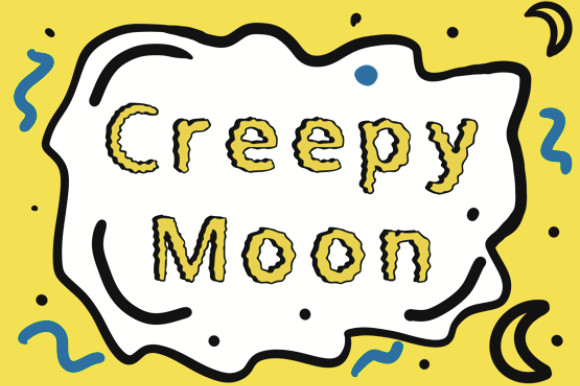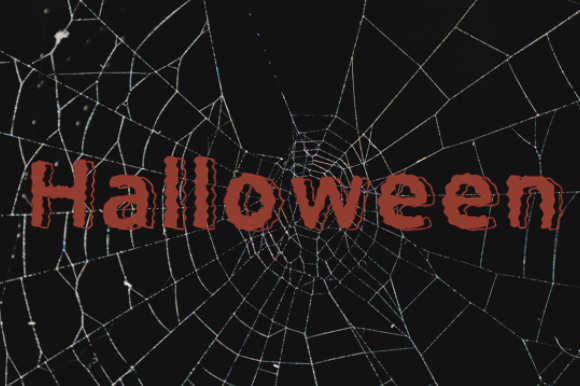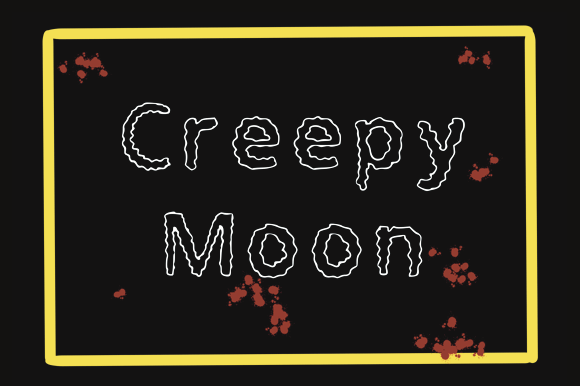
Creepy Moon Font
About Creepy Moon Font
**Creepy Moon: Embrace the Spooky Vibes with This Fun Handwritten Font**
*Creepy Moon* is a font that brings an element of spooky fun to your design projects. With its eerie and playful style, it’s perfect for capturing the essence of Halloween and adding a touch of the macabre to a wide range of creative endeavors. Whether you’re designing t-shirts, posters, social media graphics, logos, or other products, *Creepy Moon* is the font that will infuse your work with hauntingly delightful vibes.
One of the standout features of *Creepy Moon* is its ability to evoke the spirit of Halloween. The font’s playful yet eerie design captures the essence of this beloved holiday. It’s an ideal choice when you want to create designs that embrace the spooky and supernatural themes associated with Halloween.
T-shirts become an exciting canvas for creativity with *Creepy Moon*. Use this font to craft unique and eye-catching designs for Halloween-themed apparel. Whether you’re designing shirts for a spooky event or simply want to express your love for the holiday, *Creepy Moon* will set the perfect tone.
Posters that feature *Creepy Moon* will grab attention and set a spooky atmosphere. Whether you’re promoting a Halloween party, haunted house, or a horror film screening, this font will help you create visually compelling and haunting posters that entice your audience.
Social media graphics become more engaging with *Creepy Moon*. Use the font to design eye-catching posts, event invitations, and cover images that convey the excitement of Halloween. Its playful yet spooky style will draw your followers into the Halloween spirit.
Logos designed with *Creepy Moon* can give your brand a unique and memorable identity, especially if your business or product is related to Halloween or the horror genre. This font allows you to create logos that stand out and leave a lasting impression.
Beyond these applications, *Creepy Moon* offers versatility and creativity. It can be used in a variety of projects, from Halloween-themed greeting cards and invitations to spooky-themed merchandise, product packaging, and more. Its ability to convey a sense of fun and fright makes it a fantastic choice whenever you want to add an element of surprise and intrigue to your designs.
In summary, *Creepy Moon* is a fun and spooky handwritten font that captures the essence of Halloween. It’s the perfect choice for t-shirts, posters, social media graphics, logos, and a wide range of products that require a touch of eerie playfulness. Embrace the spooky vibes with *Creepy Moon* and watch your designs come to life in a delightfully haunting way.